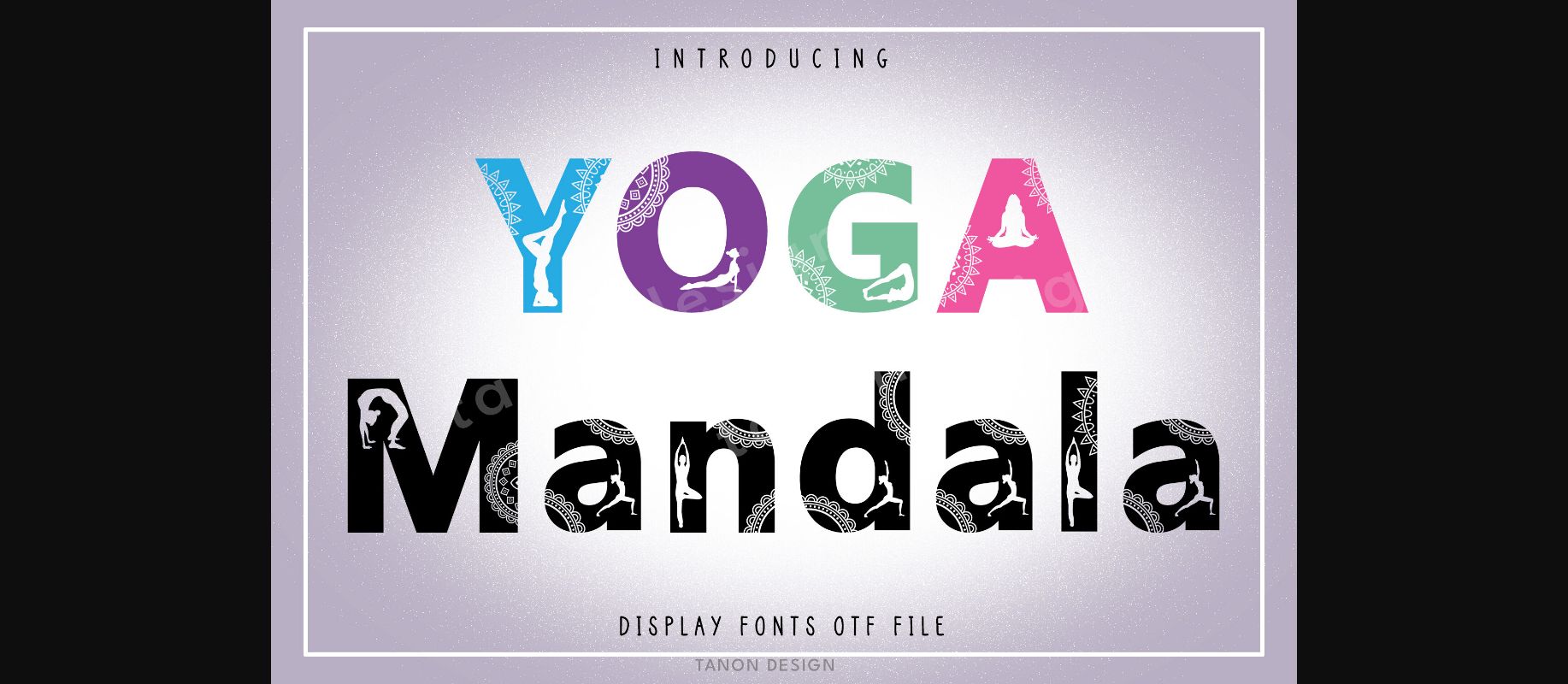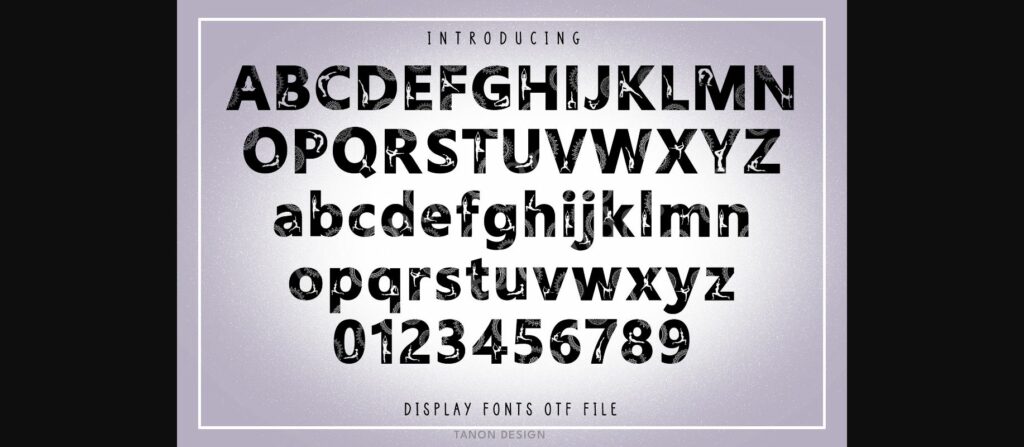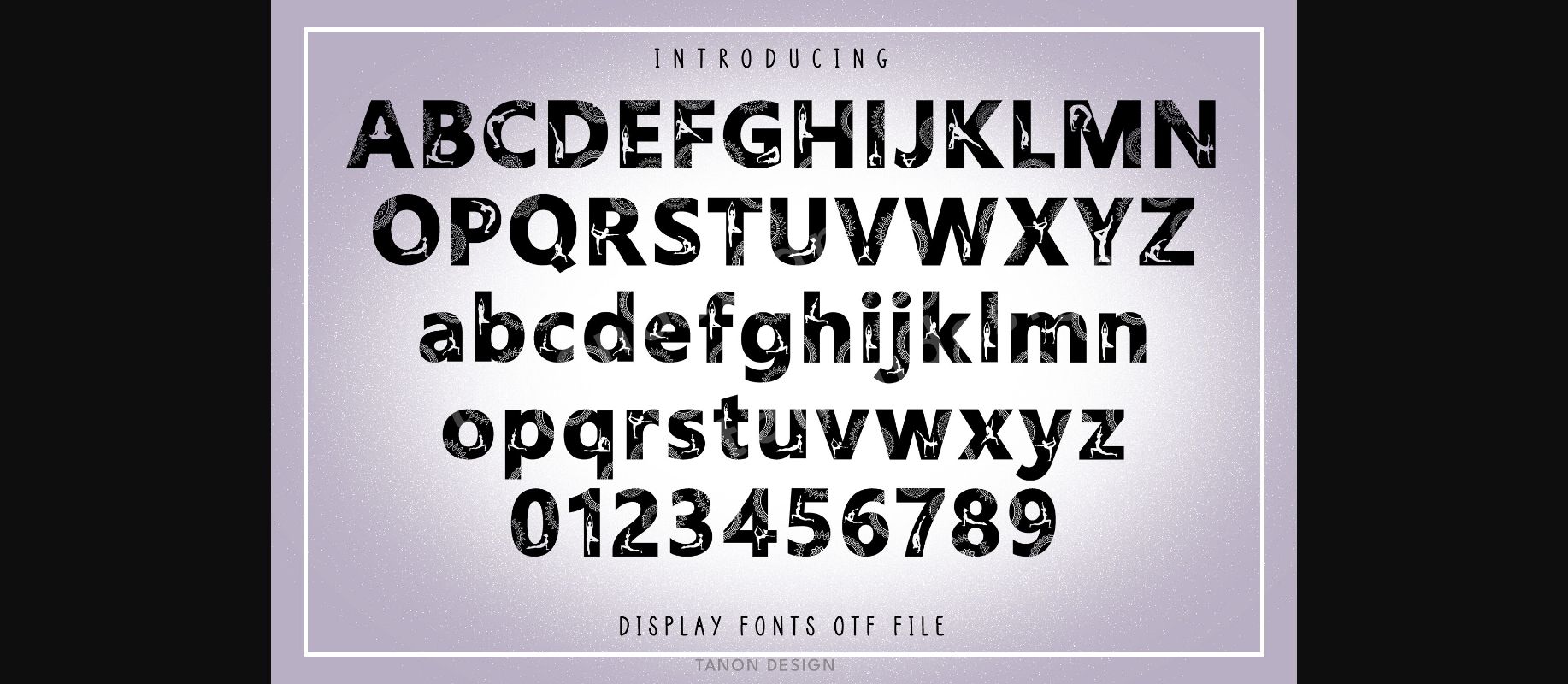
About Yoga Mandala Font
Yoga Mandala fonts. It will look fantastic on all your designs including t-shirt designs, mug designs, digital designs, crafts, cards, and any projects!